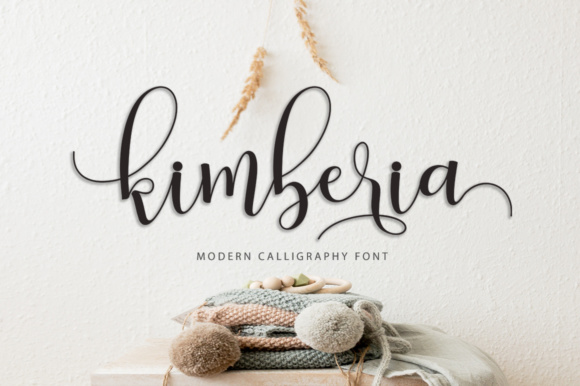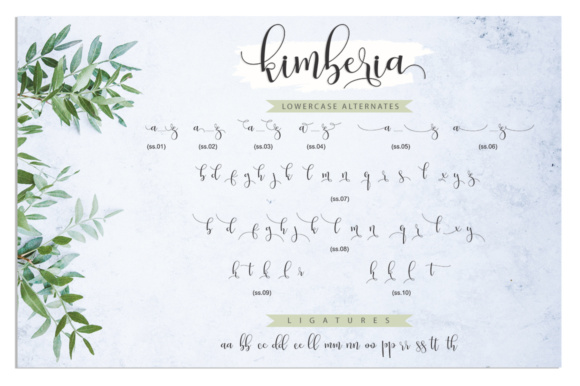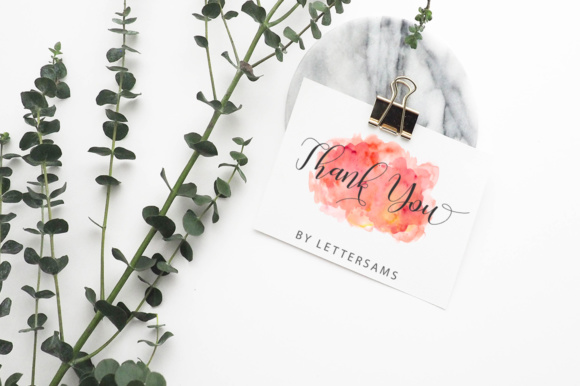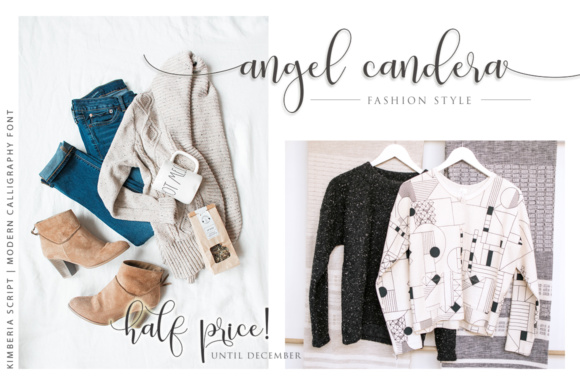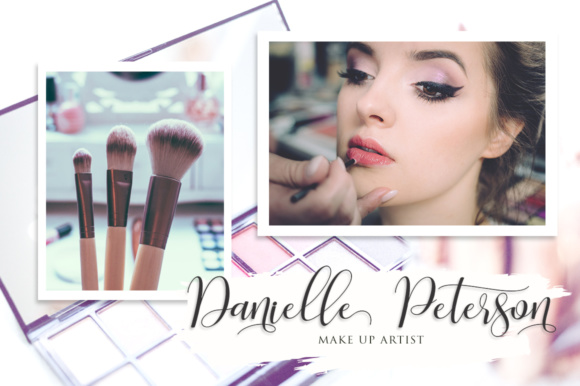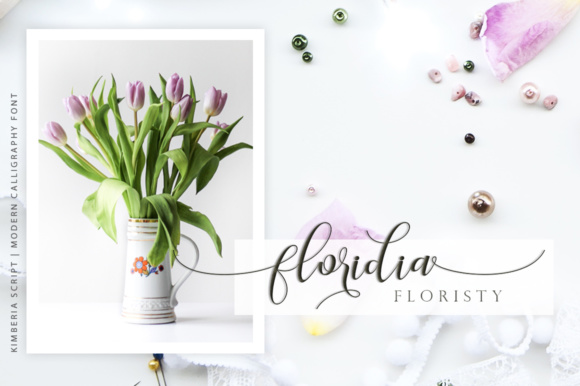
About Kimberia Script Font
Kimberia is a modern calligraphy typeface, including a regular and a italic version. With it’s beautiful swashes, Kimberia will give a feminine feel to your design. Kimberia can be used for various purposes such as: logos, product packaging, wedding invitations, branding, and more.